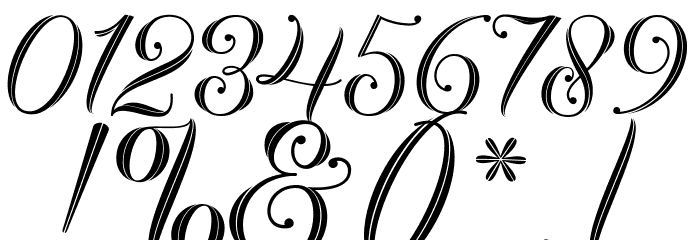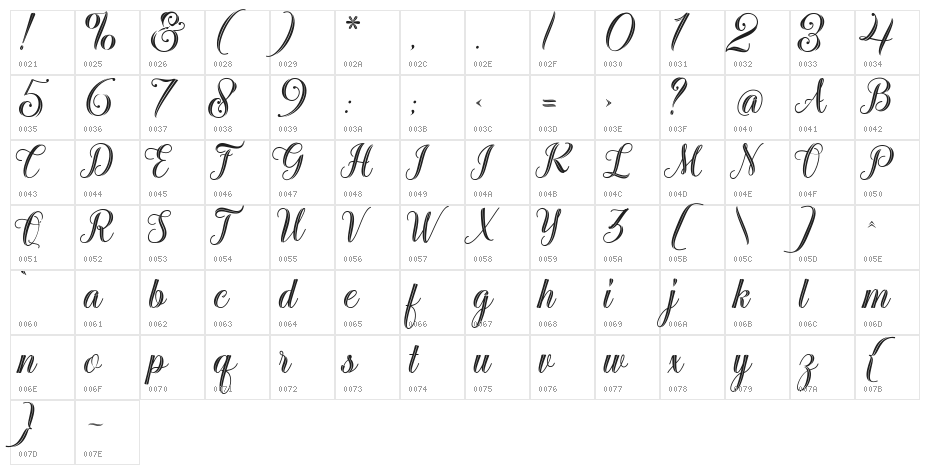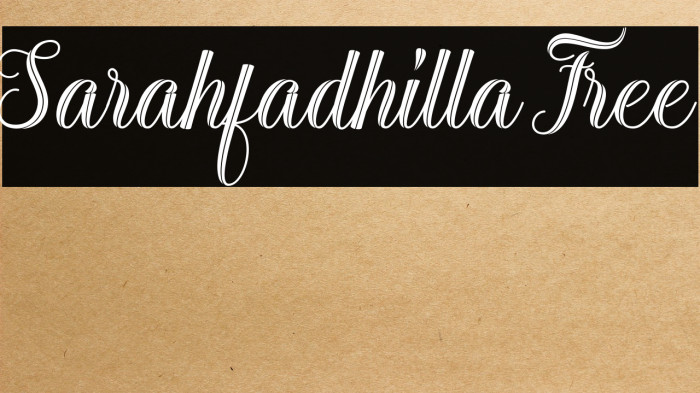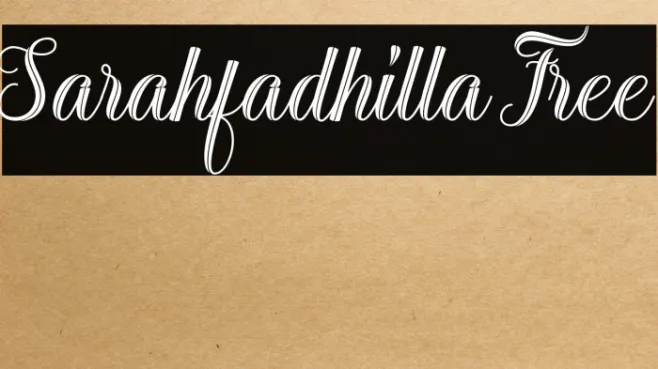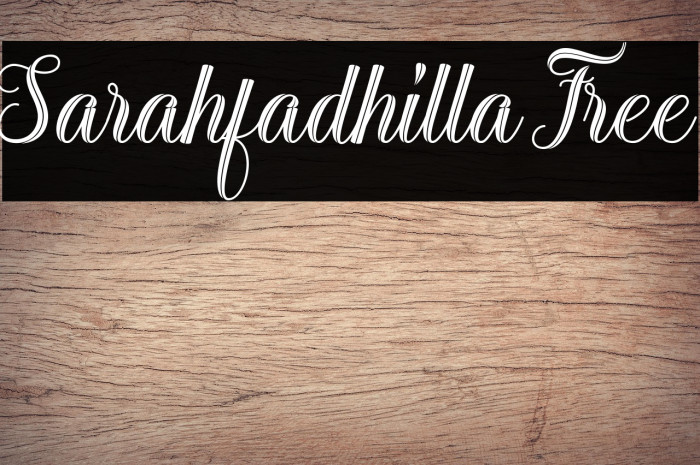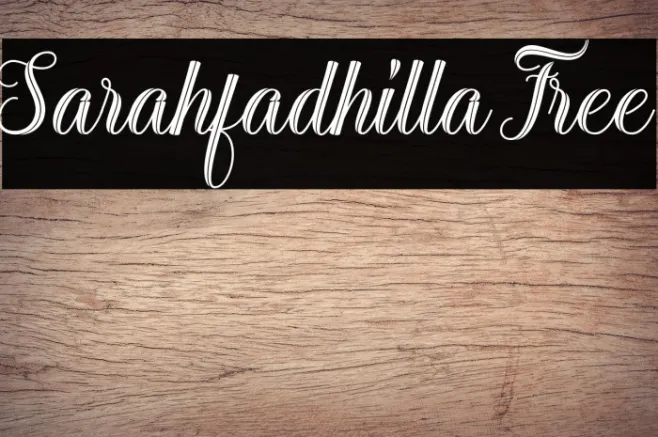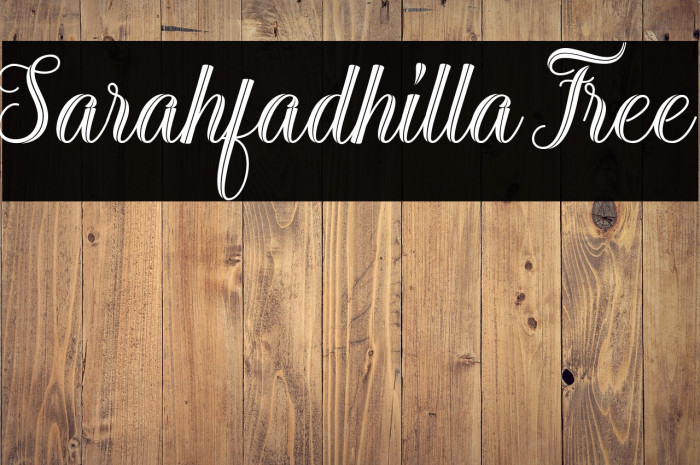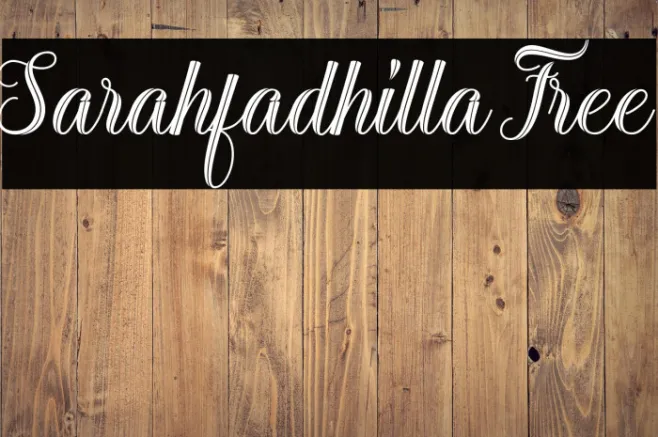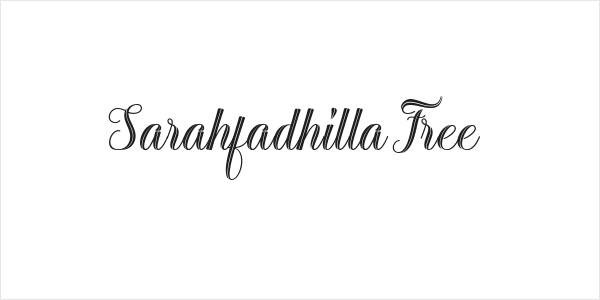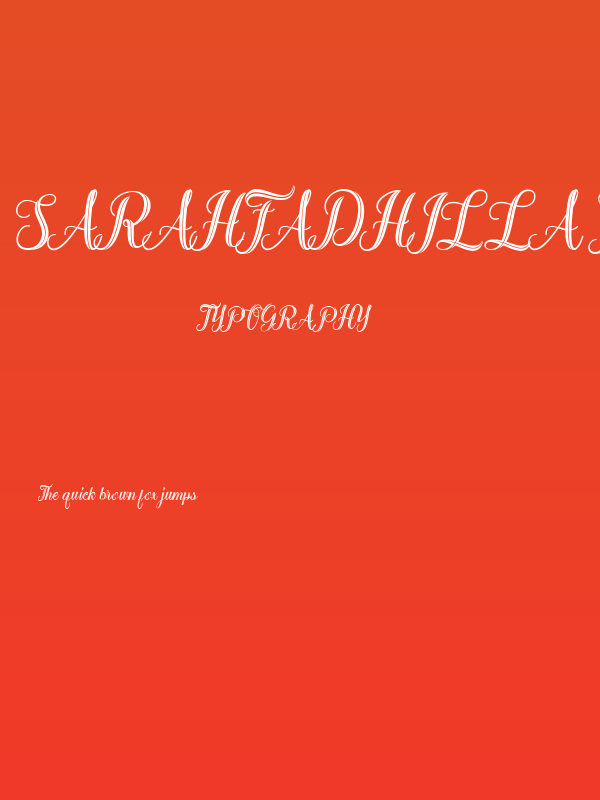
Sarahfadhilla Free Font
Sarahfadhilla Free Description
This elegant script font features a flowing, cursive style with intricate loops and flourishes. The uppercase letters are particularly ornate, with sweeping tails and decorative elements that add a sense of sophistication and grace. The lowercase letters maintain a consistent style, offering a harmonious blend of curves and lines. Numbers and special characters are designed with the same attention to detail, ensuring a cohesive look across all elements. This font exudes a sense of luxury and refinement, making it ideal for projects that require a touch of elegance.
| Proposed Projects | Ideal for wedding invitations, luxury branding, elegant packaging, and high-end product labels. |